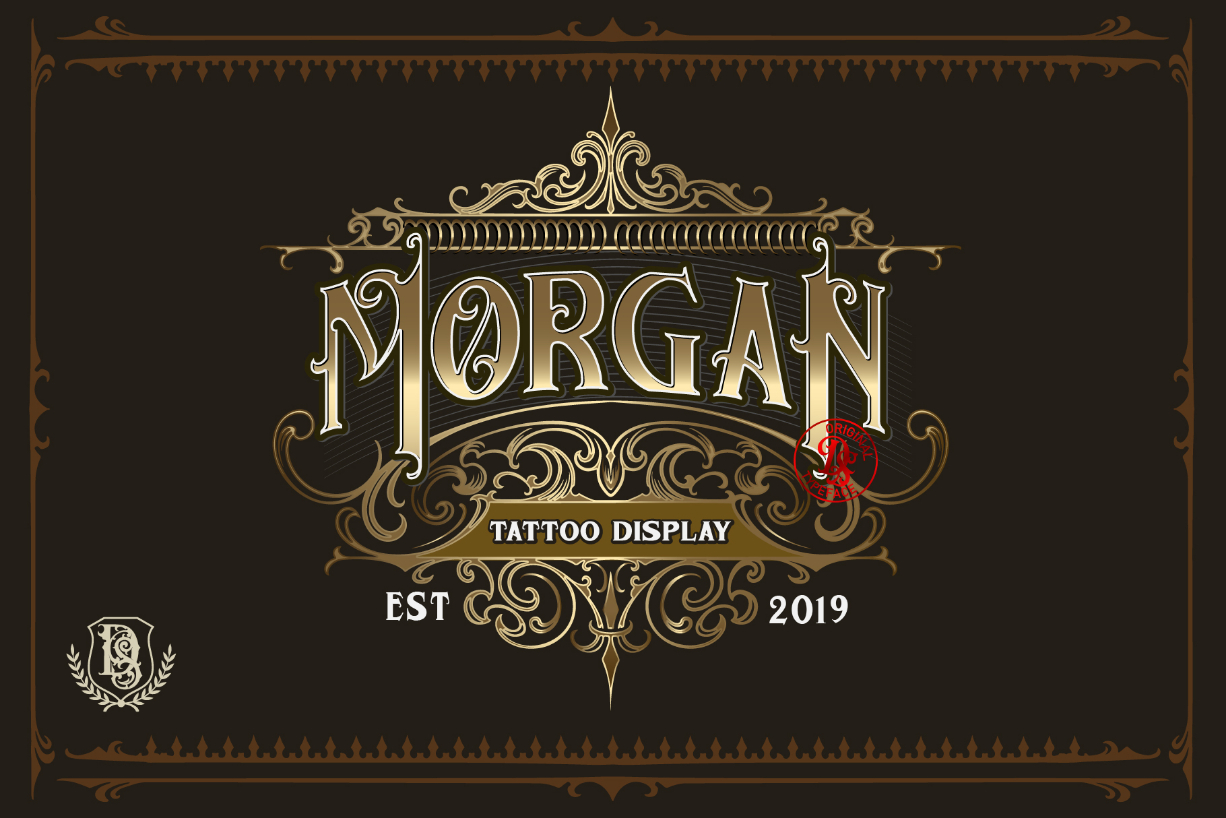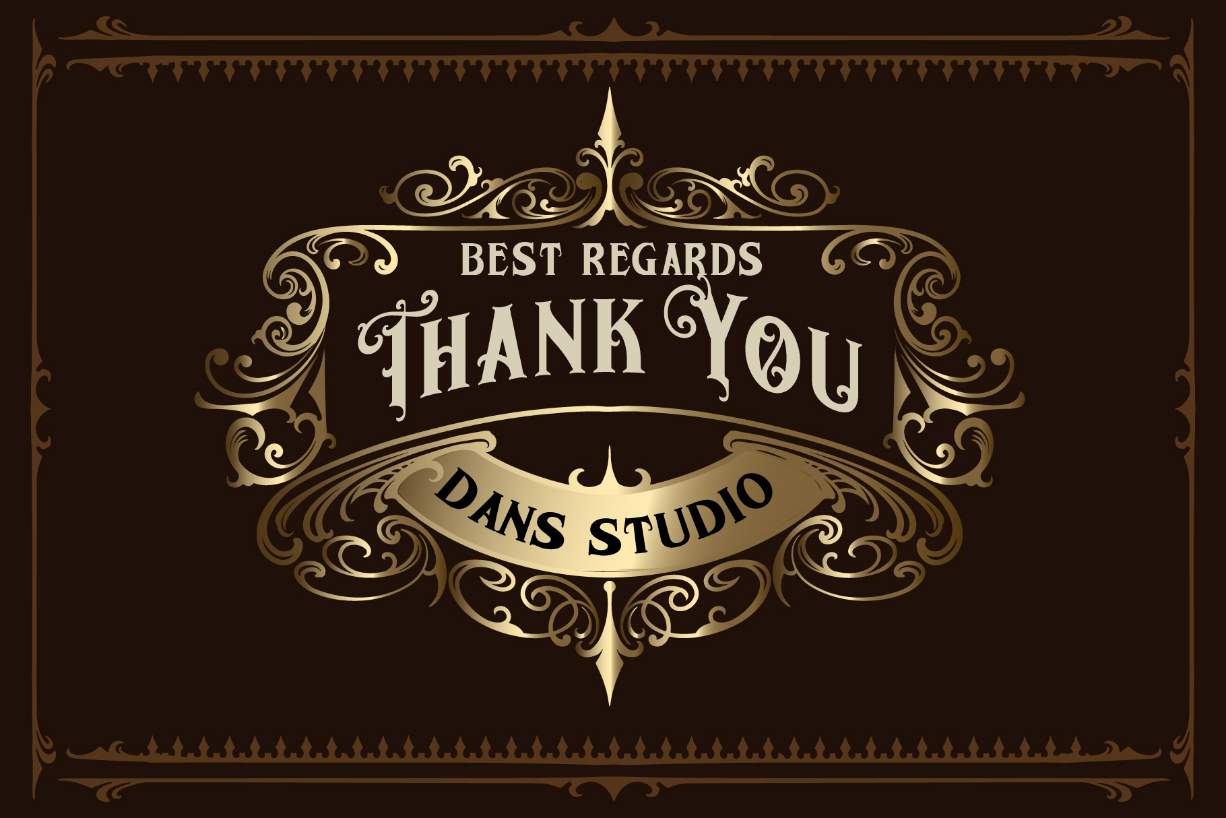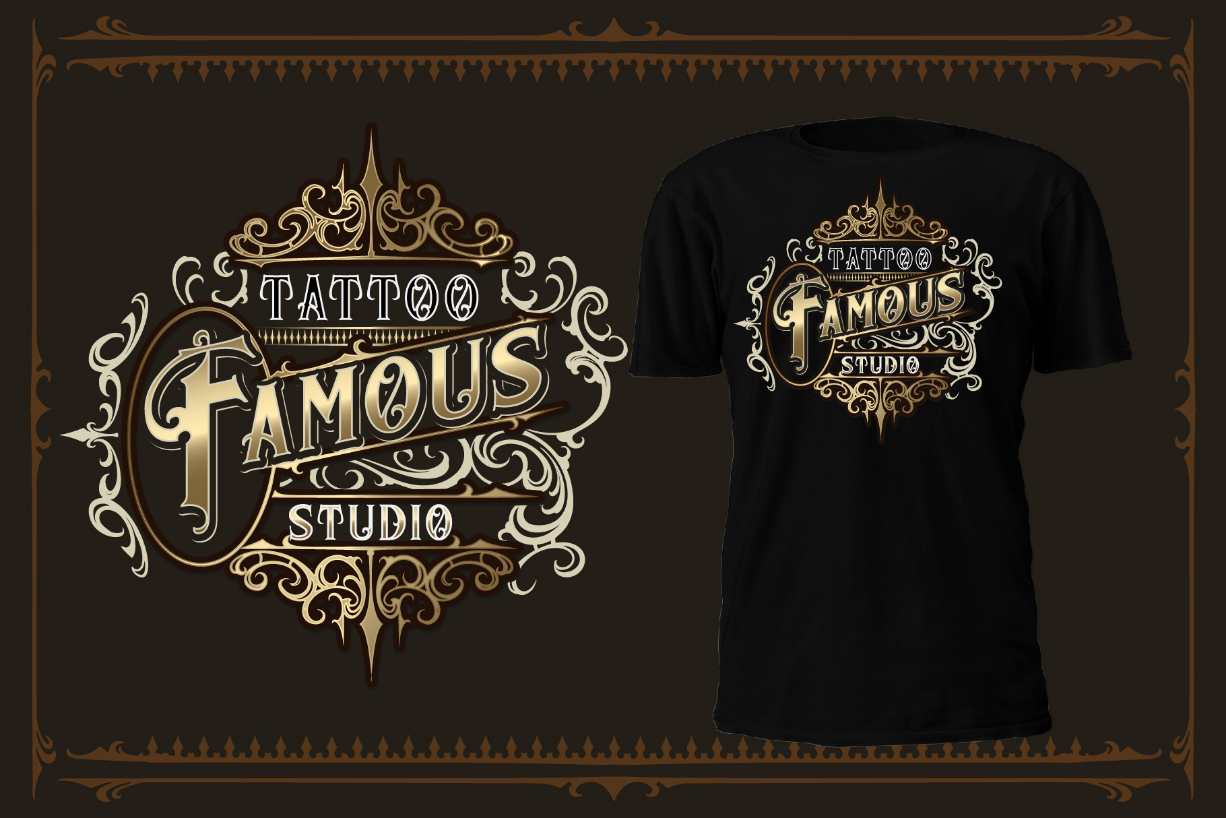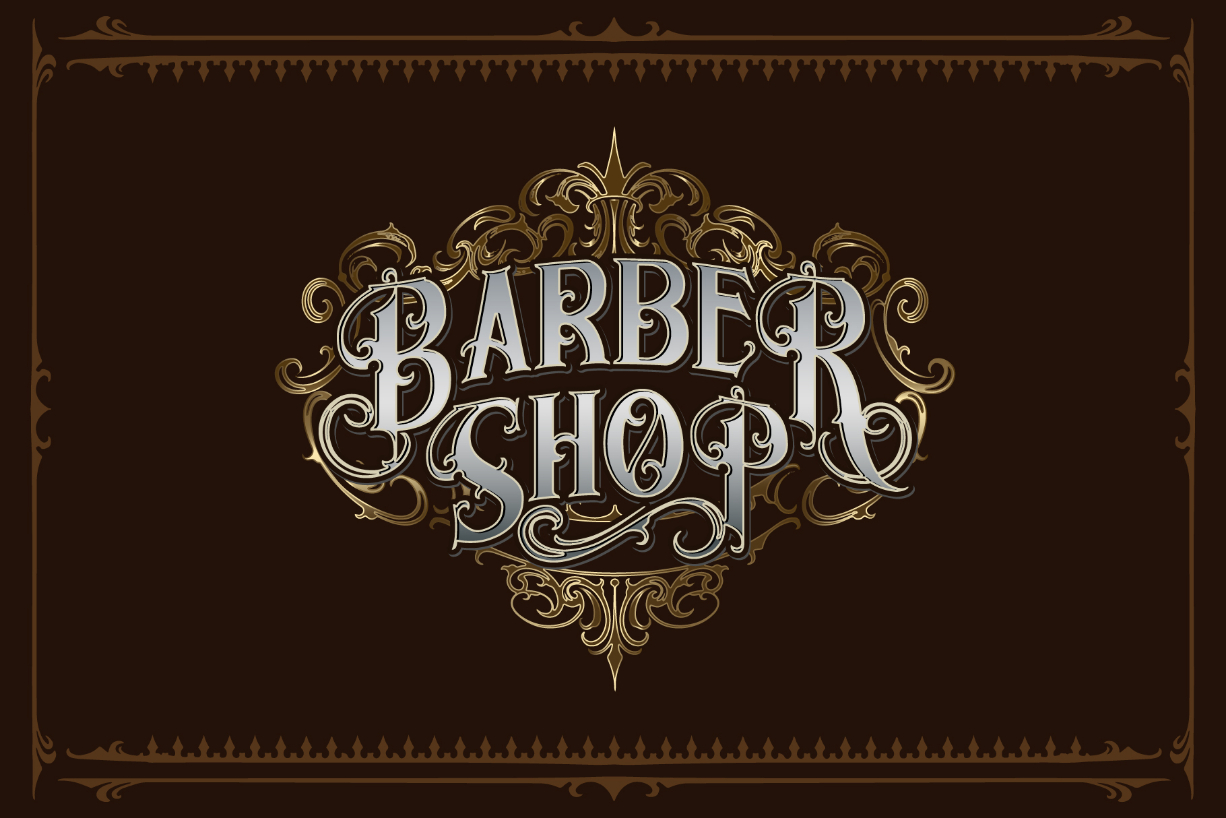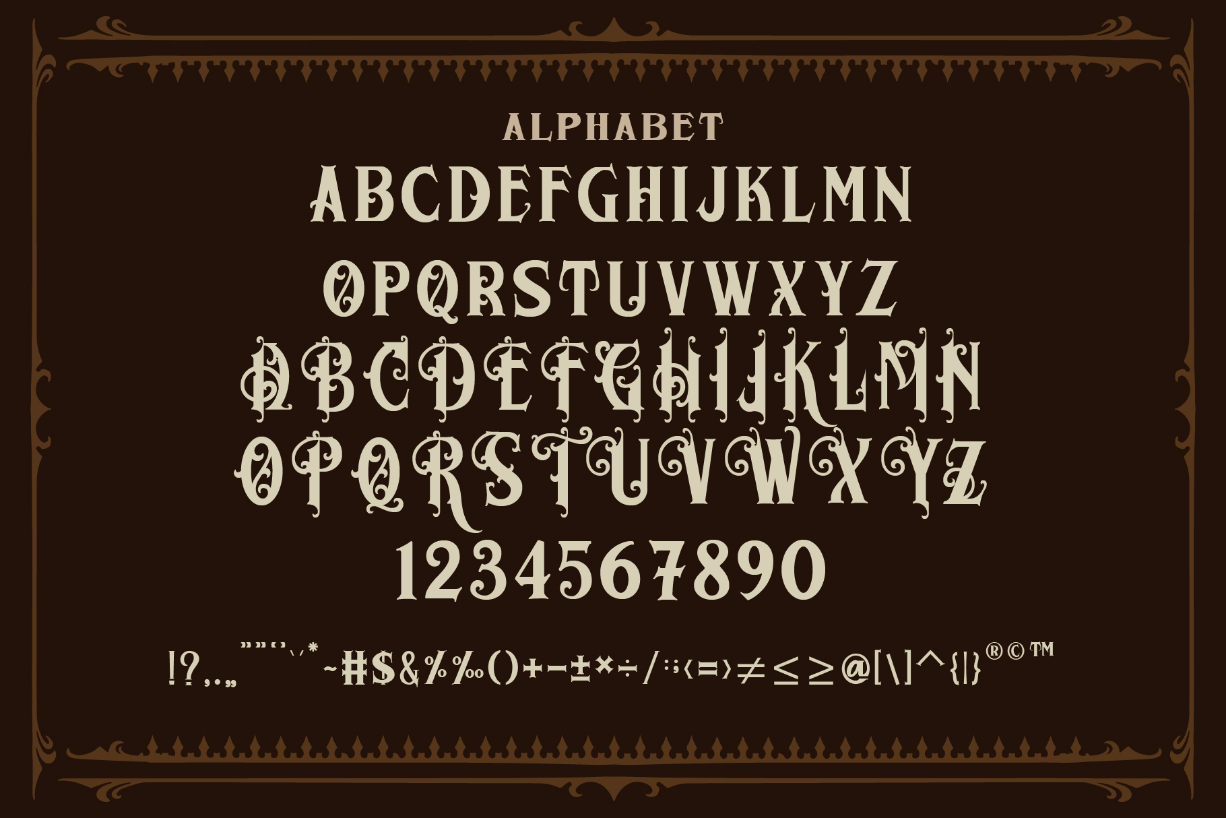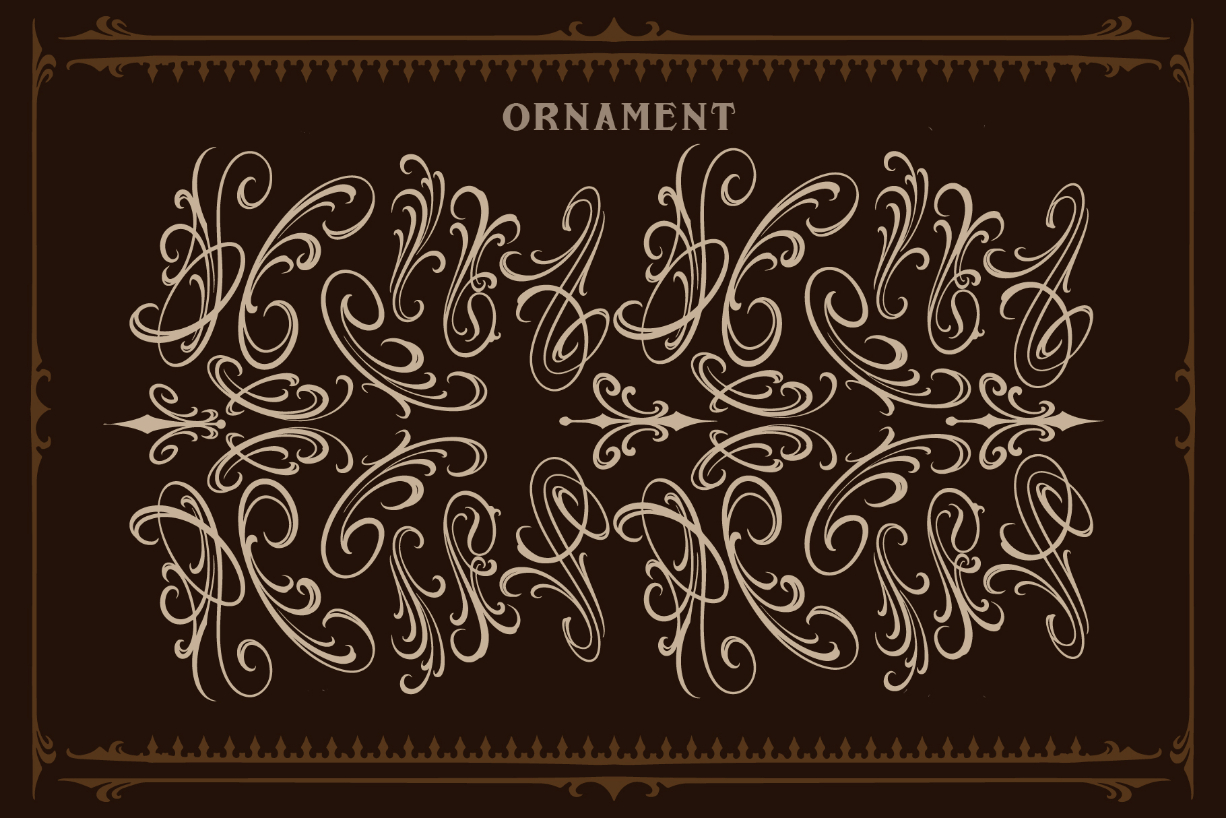
Morgan Font
About Morgan Font
Morgan is a spectacular blackletter font perfect for tattoo designs . Incredibly versatile, this font fits a wide pool of designs, elevating them to the highest levels. Add this font to your favorite creative ideas and notice how it makes them come alive!